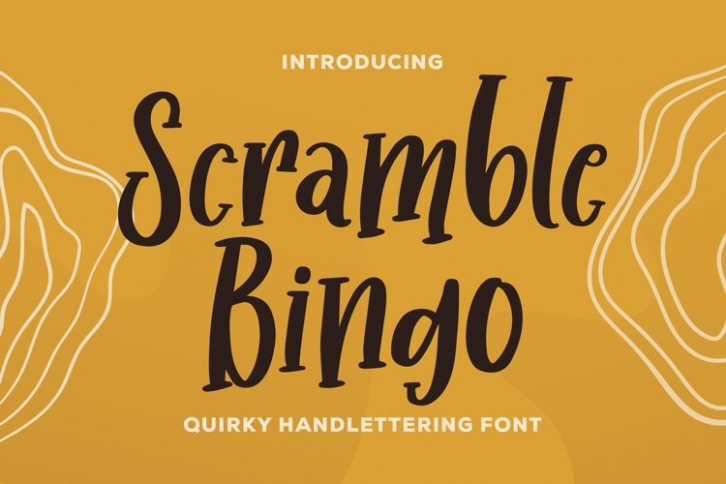
Scramble Bingo is a trendy and unique font with an authentic style. It was designed by plusstore and it's a great choice for creative people who need such a font. It was released on December 18, 2021 and the file size is 16.21 MB. Scramble Bingo will add an organic vibe to any design idea!